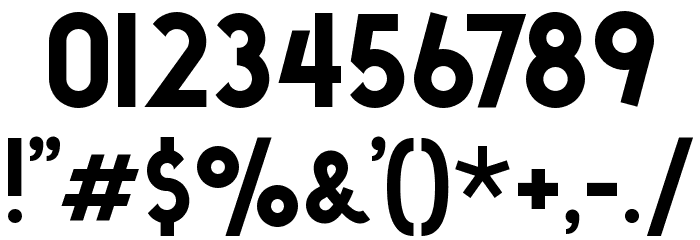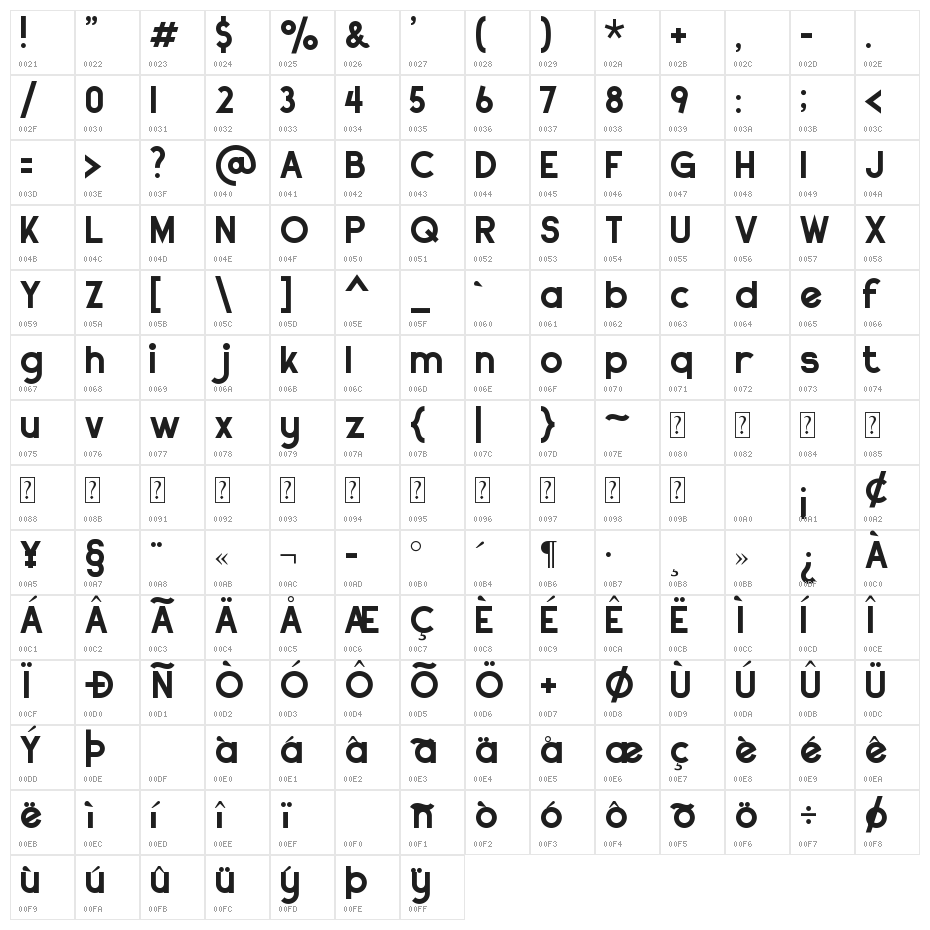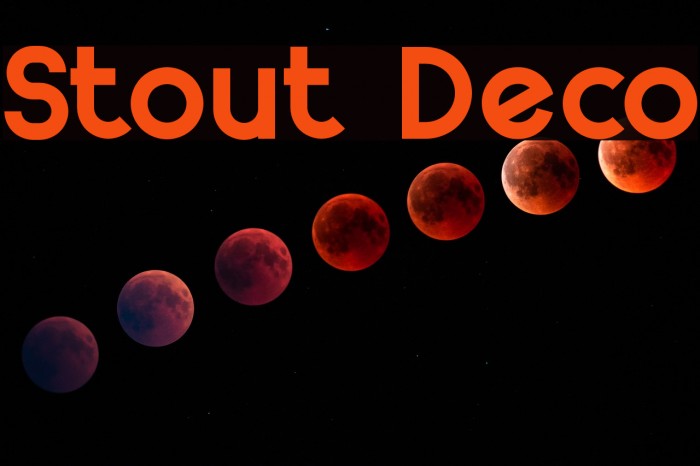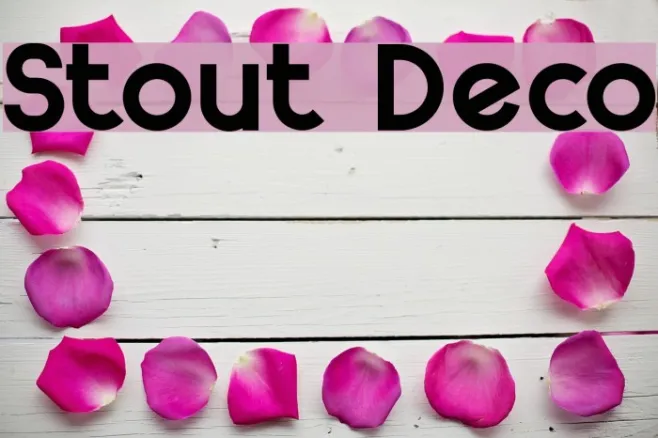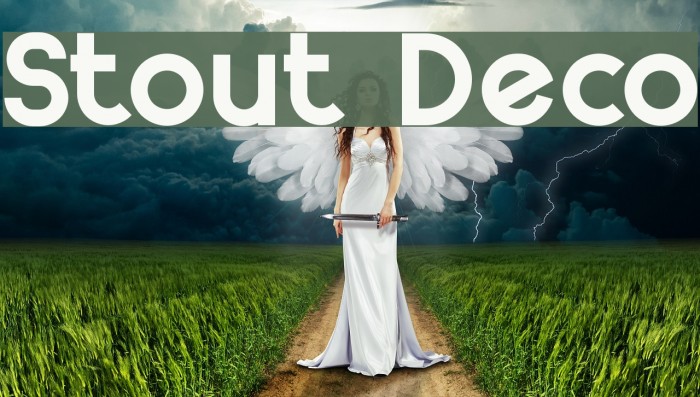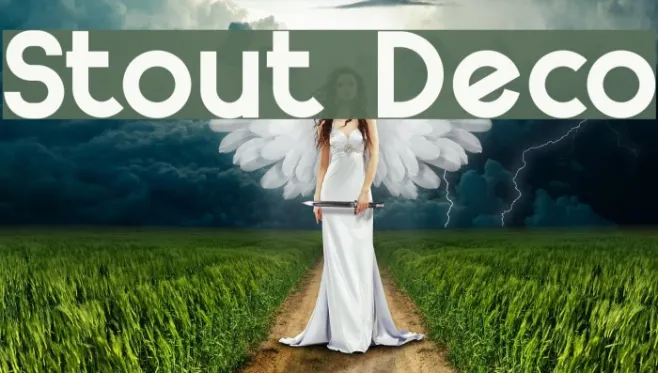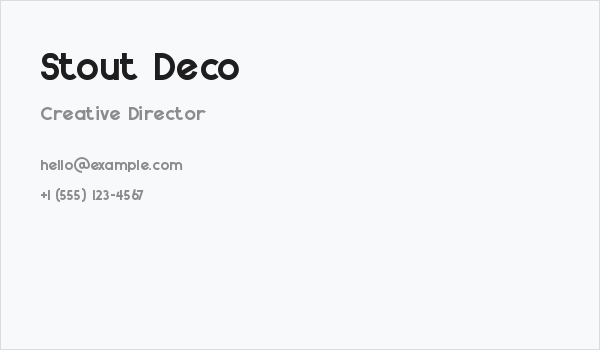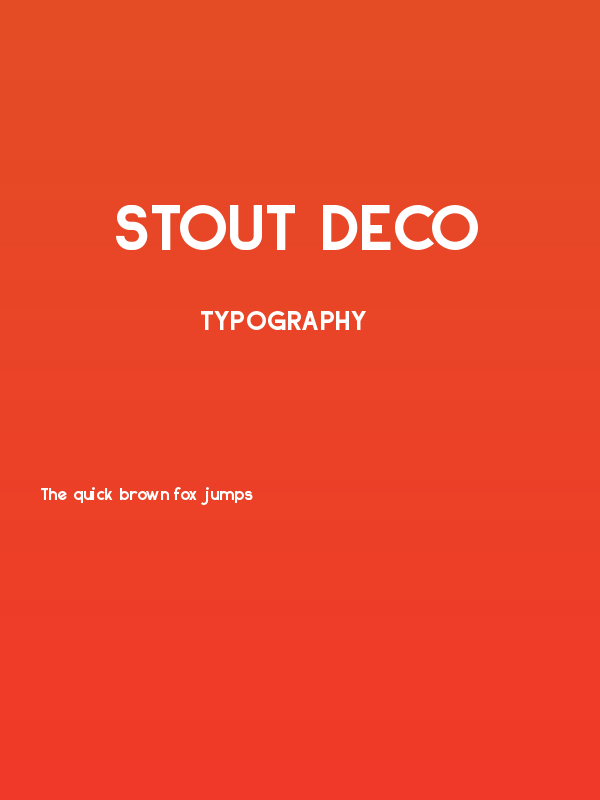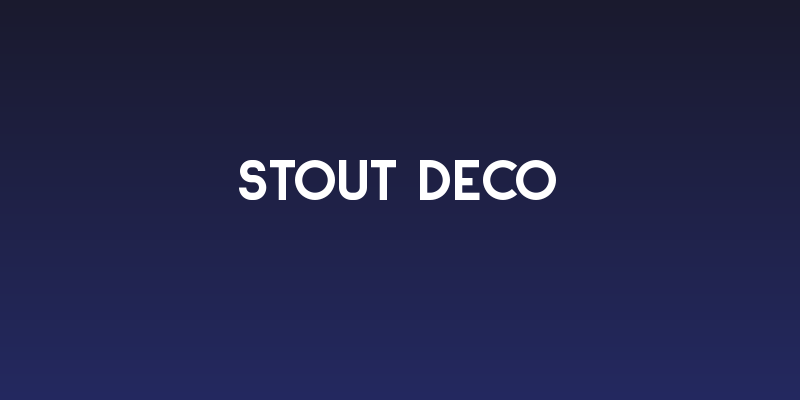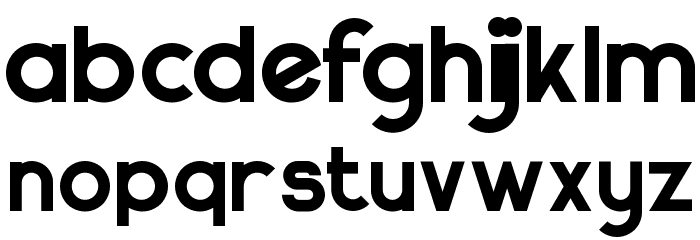
Stout Deco Font
Stout Deco Description
This font exhibits a bold and geometric style, characterized by its clean lines and strong presence. The uppercase letters are uniform and blocky, creating a sense of stability and modernity. The lowercase letters maintain a consistent weight, with rounded edges that add a touch of softness to the overall design. The numerals are clear and easily readable, matching the boldness of the alphabet characters. Special characters are designed with the same attention to detail, ensuring they integrate seamlessly with the rest of the font. This typeface is ideal for making a statement, whether in print or digital formats.
| Proposed Projects | Ideal for branding, advertising, posters, and headlines where a strong visual impact is desired. |